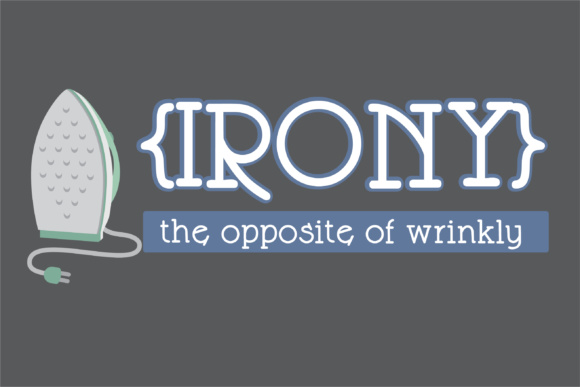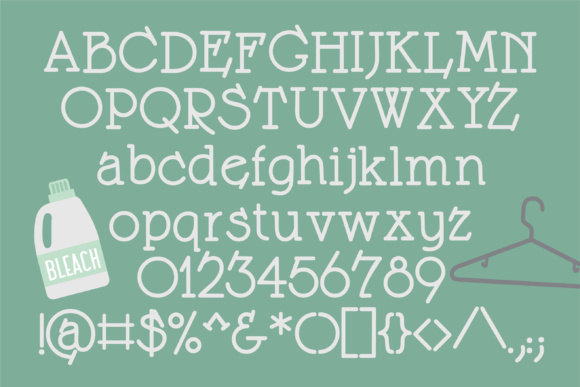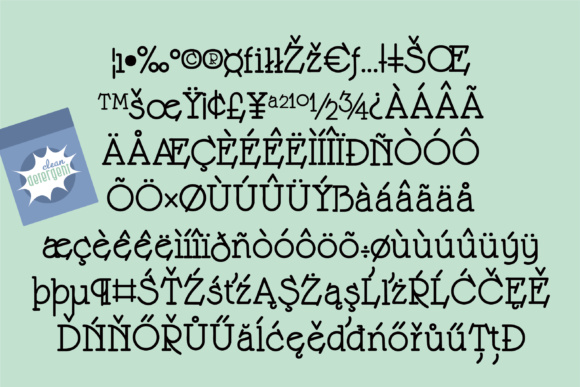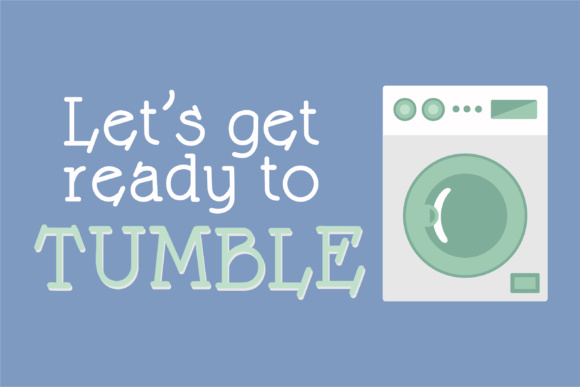
Introduction to Laundry Night Font
As a designer, you’ve likely spent countless hours perfecting a creative project, pouring over every detail to ensure it’s just right. But sometimes, it’s the little things that can make all the difference. Like the perfect font. You know, that one that adds a touch of personality and whimsy to your design, making it truly stand out from the crowd.
Enter the Laundry Night Font, a hand-crafted slab serif font with uniquely long serifs and a bit of a retro feel. This high-quality design resource is perfect for adding a touch of nostalgia to your next project. And the best part? It’s available for free download, complete with a transparent background, making it easy to incorporate into any design.
As a valuable resource for designers, the Laundry Night Font is sure to become a go-to favorite. Its versatility and unique style make it an ideal choice for a wide range of creative projects, from branding and marketing materials to editorial and publishing designs.
Key Features of Laundry Night Font
- Unique and quirky design perfect for creative projects and personal branding.
- High-quality font with a transparent background, allowing for seamless integration with any design.
- Includes 100 glyphs and supports Latin characters, making it suitable for a wide range of applications.
- Perfect for adding a touch of whimsy and personality to your designs, from logos and branding to digital art and creative writing.
Honest Review: Laundry Night Font
I recently had the opportunity to work with the Laundry Night Font, and I must say it’s been a pleasant experience. The font is designed to evoke a sense of relaxation and tranquility, which is perfect for creative projects that require a soothing atmosphere.
Here are some of the things that work well: ✨ High-quality glyphs that are smooth and well-designed. ✨ A transparent background that makes it easy to integrate into any design. ✨ A clean and modern aesthetic that’s perfect for branding and marketing materials.
- High-quality design that’s suitable for a variety of creative projects.
One limitation I’ve noticed is that the font is not suitable for projects that require bold or dramatic typography. The font’s design is more suited for subtle and understated applications.
Overall, I’m impressed with the Laundry Night Font. It’s a great addition to any design resource library, and I would recommend it to designers who are looking for a high-quality, free download font.
Laundry Night Font
The Laundry Night Font is a unique and eye-catching design resource that can add a personal touch to any creative project. This high-quality font is available for free download, making it an ideal addition to your design toolkit.
Tips for Getting the Most Out of Laundry Night Font
For the best results, use the Laundry Night Font with a transparent background to create a clean and modern look. Experiment with different font sizes and colors to add emphasis and interest to your designs.
Common Use Cases for Laundry Night Font
The Laundry Night Font is perfect for a variety of creative projects, including social media graphics, blog posts, and marketing materials. Its unique and eye-catching design makes it an ideal choice for brands and businesses looking to stand out in a crowded market.